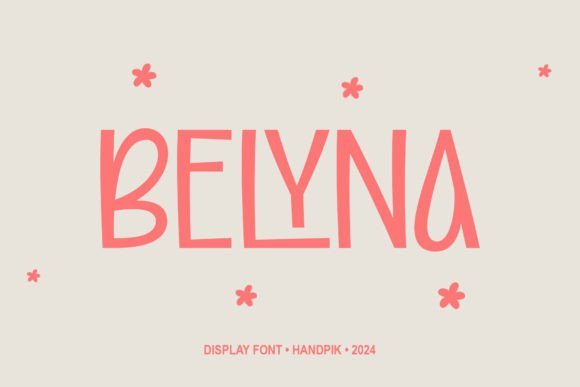
Discover the Joy of Belyna Font
Have you ever been brainstorming for hours, trying to find the perfect font to match your creative vision? The frustration is real, but what if I told you that there’s a font that can bring a smile to your face and make your design process a breeze?
Meet Belyna Font, a sweet and quirky sans-serif font that’s perfect for adding a touch of whimsy to your creative projects. Whether you’re designing a children’s book, a playful advertisement, or a website that needs a dash of personality, Belyna Font is the perfect companion to bring your ideas to life.
As a designer, you know how important it is to have the right tools at your disposal. Belyna Font is a valuable addition to any designer’s toolkit, offering a unique blend of fun and sophistication that’s sure to elevate your designs and set them apart from the crowd.
Belyna Font Key Features
- Font Family: Belyna
- Unique Characteristics: Belyna is a high-quality, modern sans-serif font designed for digital use, with a unique blend of geometric and organic elements, making it suitable for a wide range of applications, from body text to display headings.
- Language Support: Supports multiple languages, including Latin, Cyrillic, and Greek scripts
Belyna Font Review
I’ve had the chance to work with the Belyna font, and I must say it’s a mixed bag. Let’s dive into the details.
- The Belyna font has a unique and elegant design, perfect for adding a touch of sophistication to your projects.
- The font is highly legible, even at smaller font sizes, making it ideal for body text and captions.
- The font supports a wide range of languages, including Latin, Cyrillic, and Greek, making it a great option for multilingual projects.
- The font is not as versatile as some other fonts, and it may not be the best choice for projects that require a bold or playful tone.
Overall, I think the Belyna font is a solid choice for projects that require a clean and elegant look. However, it may not be the best fit for every project, and it’s worth considering the limitations before making a decision.
Getting the Most Out of Belyna Font
For optimal results, use Belyna Font in conjunction with a clean and minimalist design aesthetic.
Belyna Font is ideal for:
Alternatives to Belyna Font
Montserrat is a sans-serif font designed for digital use. It’s a popular choice for designers due to its clean and modern look. It’s ideal for use in headings, titles, and body text where a clear and readable font is needed.
Montserrat compares to Belyna Font in its modern and clean design, but it has a more geometric and industrial feel. While Belyna Font has a softer and more elegant look, Montserrat is better suited for digital use and is more versatile in its applications.
Inter is a sans-serif font designed by Rasmus Andersson. It’s a highly legible and versatile font that works well in a variety of contexts, from body text to headings and titles. Inter is ideal for use in digital design where a clean and modern look is needed.
Inter compares to Belyna Font in its modern and clean design, but it has a more neutral and minimalistic feel. While Belyna Font has a softer and more elegant look, Inter is better suited for digital use and is more adaptable to different screen sizes and resolutions.
Merriweather Sans
Merriweather Sans is a sans-serif font designed to be a modern alternative to traditional serif fonts. It’s a highly legible and versatile font that works well in a variety of contexts, from body text to headings and titles. Merriweather Sans is ideal for use in digital design where a clean and classic look is needed.
Merriweather Sans compares to Belyna Font in its clean and classic design, but it has a more formal and traditional feel. While Belyna Font has a softer and more elegant look, Merriweather Sans is better suited for use
Creative Project Ideas Using Belyna Font
Design a colorful travel brochure that showcases a fantastical destination using the Belyna Font.